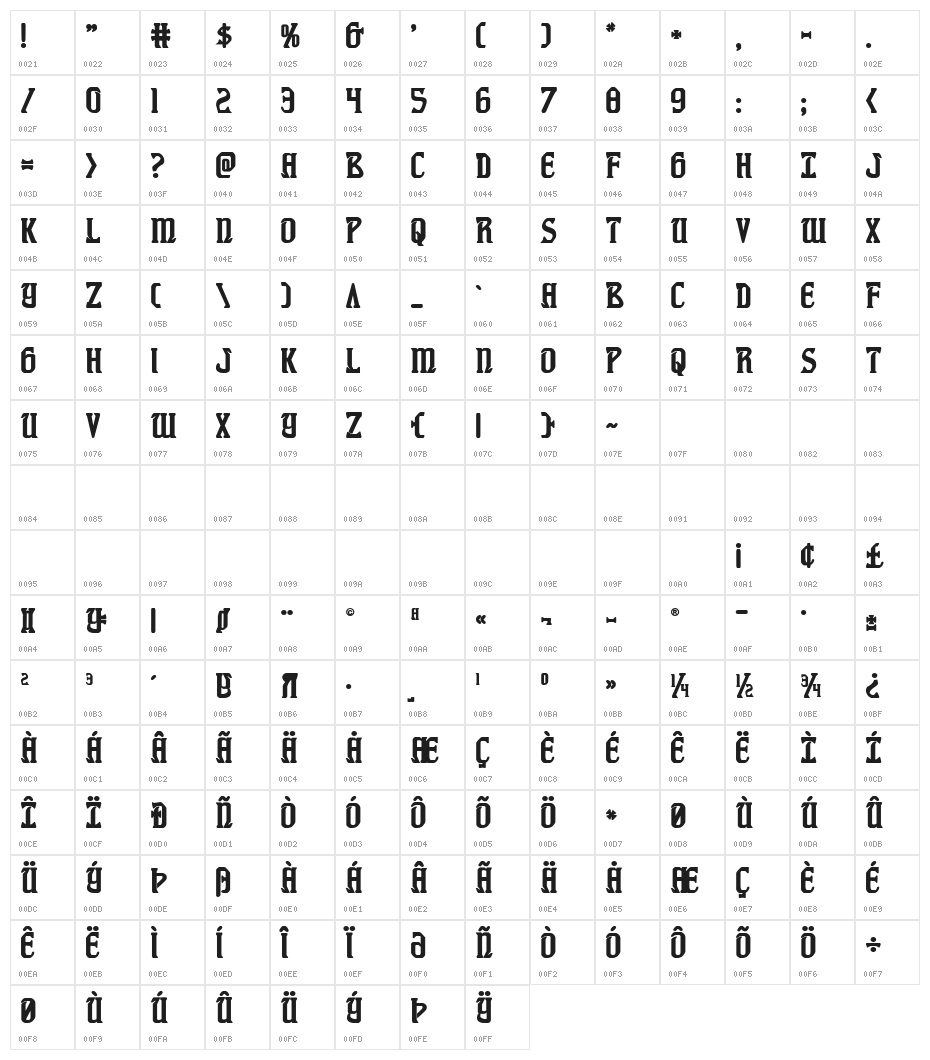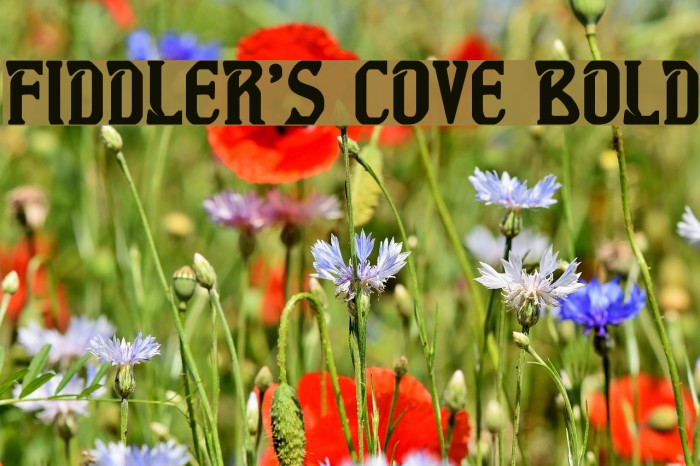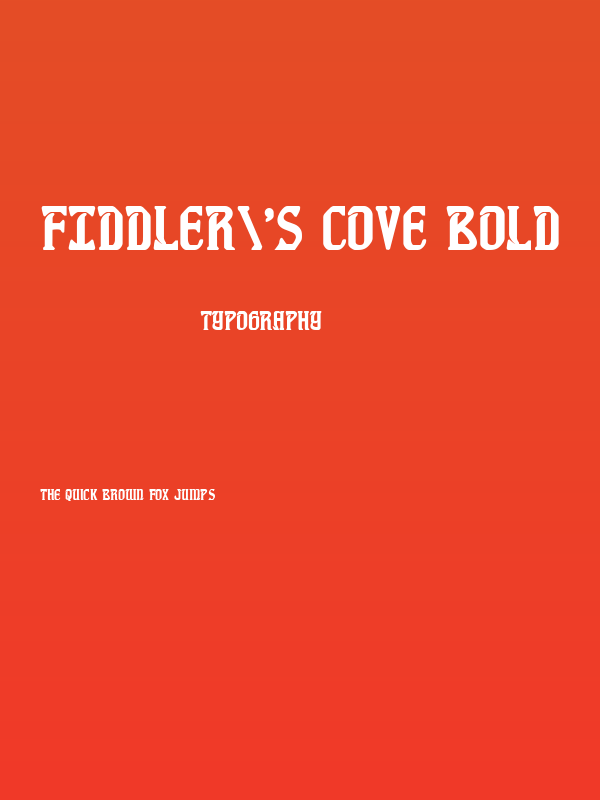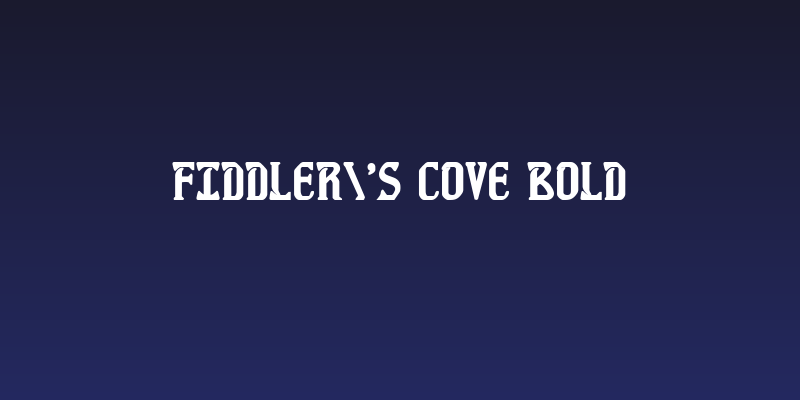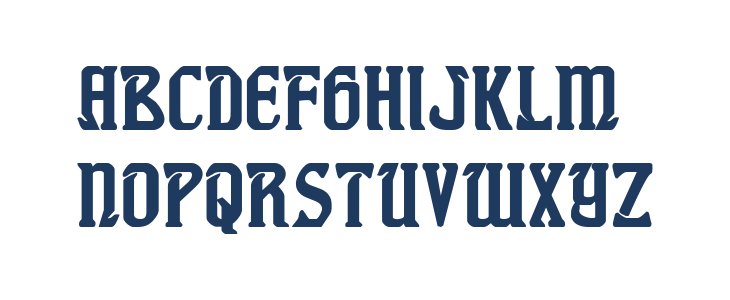
Fiddler's Cove Bold Font
Fiddler's Cove Bold Description
This font features a bold and striking design with a strong presence. The characters are crafted with a distinct blackletter style, characterized by sharp angles and thick strokes. The uppercase letters are particularly prominent, with a medieval flair that evokes a sense of tradition and history. The numbers and special characters maintain the same boldness, ensuring consistency across all glyphs. This font is ideal for creating impactful designs that require a touch of elegance and authority.
| Proposed Projects | Suitable for projects like vintage posters, book covers, branding for historical or fantasy themes, and event invitations. |